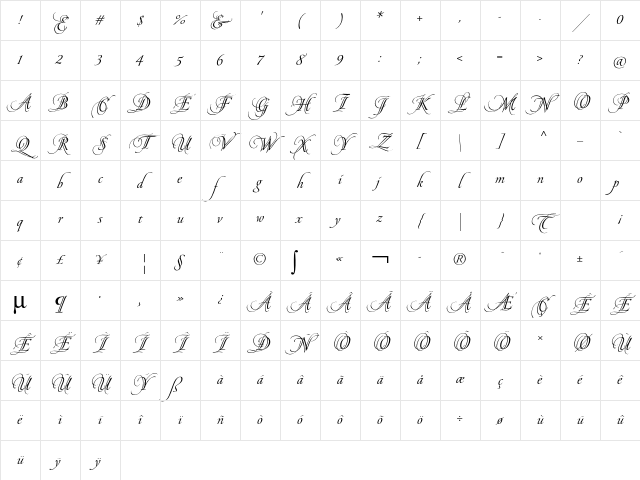
Pirouette LT Std Regular
Designer: Ryuichi Tateno
Design Context for Pirouette LT Std
Pirouette LT Std is a composed and adaptable typeface that performs quietly and consistently across a wide range of design contexts. Its slender proportions lend an understated elegance to any composition.